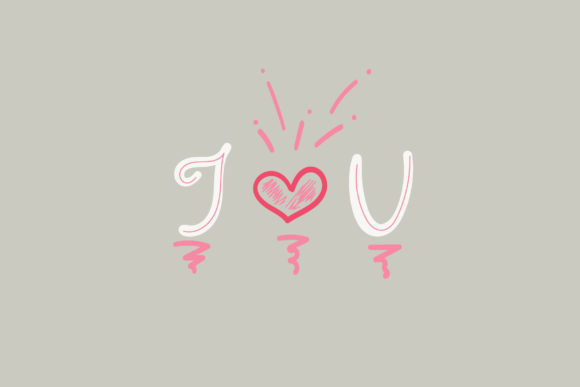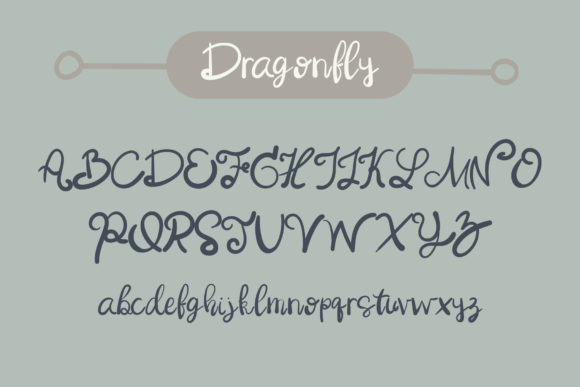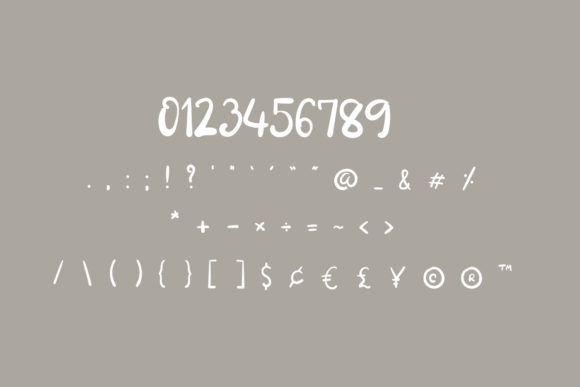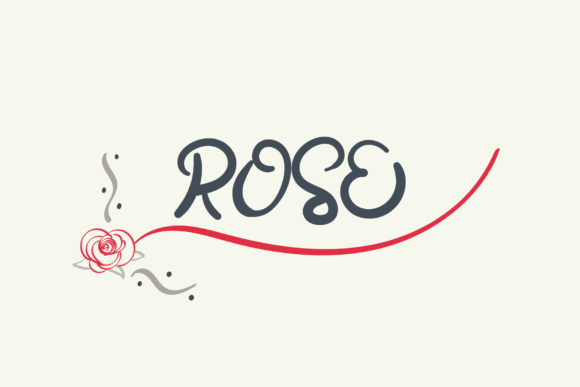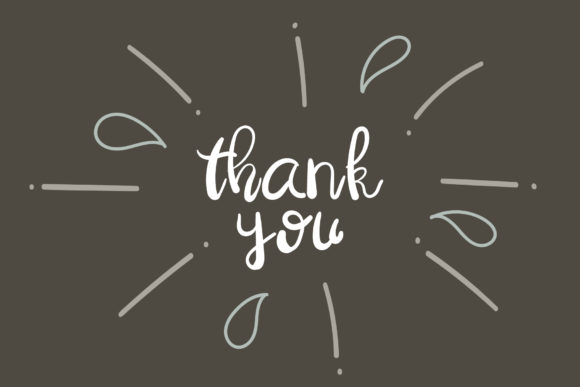
Dragonfly Font: The Perfect Choice for Friendly and Creative Designs
Are you a designer or crafter looking for a font that can add a touch of friendliness and approachability to your designs? Look no further than the Dragonfly Font! This cute and casual handwritten font is the perfect fit for making original and outstanding designs that will capture the hearts of your audience.
What is Dragonfly Font?
Dragonfly Font is a unique and charming handwritten font that is designed to convey a sense of warmth and friendliness. Its casual and approachable style makes it perfect for a wide range of design projects, from branding and advertising to crafting and DIY projects.
Key Features of Dragonfly Font
- Cute and Casual: Dragonfly Font has a playful and informal style that is sure to add a touch of whimsy to your designs.
- Handwritten: This font is carefully crafted to mimic the look and feel of handwritten text, giving it a personal and authentic touch.
- Friendly Feel: The font’s friendly and approachable style makes it perfect for designs that need to convey a sense of warmth and approachability.
- Highly Versatile: Dragonfly Font can be used for a wide range of design projects, from digital designs to print materials.
Why Choose Dragonfly Font?
So why choose Dragonfly Font for your design projects? Here are just a few reasons:
- Unique and Original: Dragonfly Font is a one-of-a-kind font that will help your designs stand out from the crowd.
- Easy to Read: The font’s clear and legible style makes it easy to read, even at small sizes.
- Customizable: Dragonfly Font can be easily customized to fit your design needs, from adjusting the font size to changing the color and texture.
- Time-Saving: With Dragonfly Font, you can create professional-looking designs in no time, saving you time and effort.
How to Use Dragonfly Font in Your Designs
Using Dragonfly Font in your designs is easy! Here are a few tips to get you started:
- Pair it with Other Fonts: Dragonfly Font pairs well with other fonts, so feel free to experiment with different font combinations to create a unique look.
- Use it for Headings and Titles: The font’s bold and playful style makes it perfect for headings and titles.
- Add Texture and Patterns: Add texture and patterns to your designs to give them a more organic and handmade feel.
- Experiment with Colors: Don’t be afraid to experiment with different colors to find the perfect combination for your design.
Design Ideas Using Dragonfly Font
- Branding and Logo Design: Use Dragonfly Font to create a unique and memorable brand identity.
- Social Media Graphics: Create eye-catching social media graphics with Dragonfly Font.
- Crafting and DIY Projects: Use Dragonfly Font to add a personal touch to your crafting and DIY projects.
- Wedding and Party Invitations: Create beautiful and unique wedding and party invitations with Dragonfly Font.